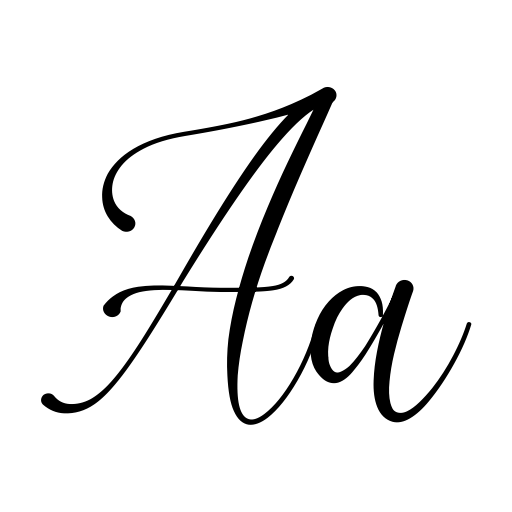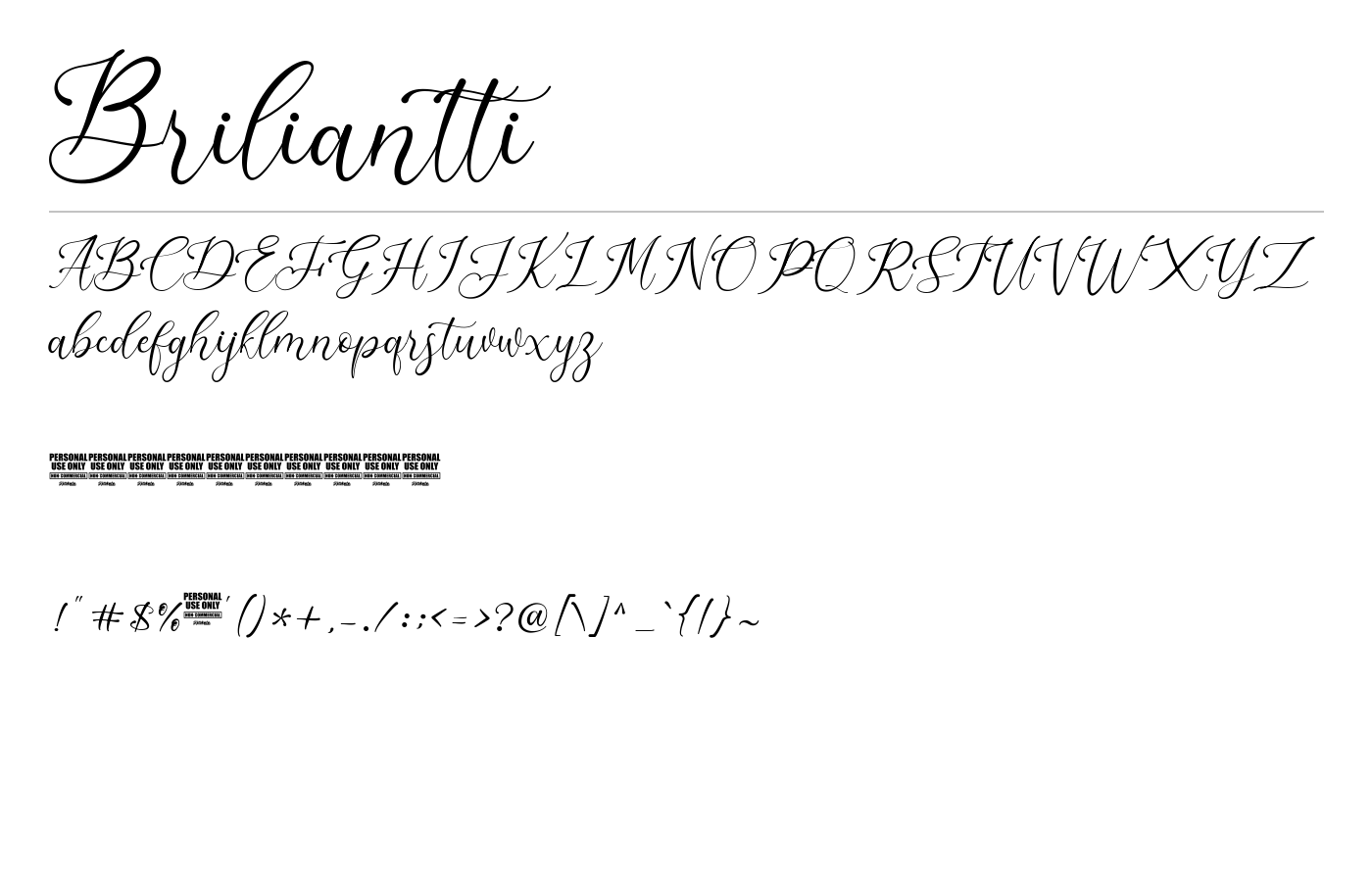
Briliantti is an elegant, flowing script font characterized by its graceful, thin strokes and delicate, handwritten style. Its high contrast and stylish swashes make it ideal for sophisticated branding, wedding invitations, and luxury packaging where a refined and personal touch is desired. This font works best in headlines and decorative uses, bringing a romantic and classy feel to any design.
Briliantti Font
About Briliantti Font
| Font family | Briliantti Font |
| Designer | Fuad Hasan |